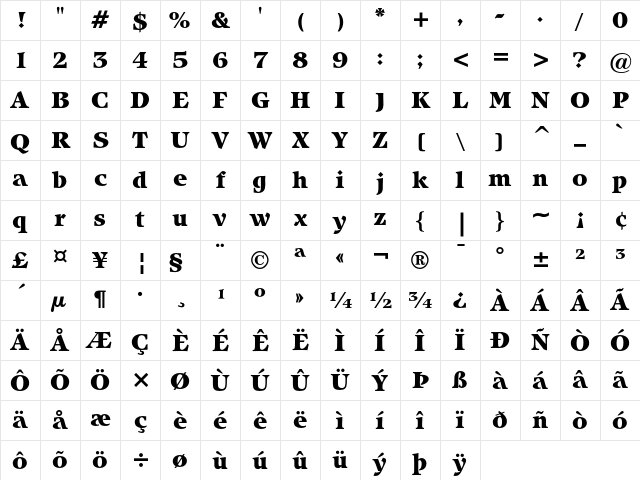
ITC Isbell Heavy
ITC Isbell Family
ITC Isbell Heavy
Design Context for ITC Isbell
ITC Isbell is a composed and adaptable typeface that performs quietly and consistently across a wide range of design contexts.